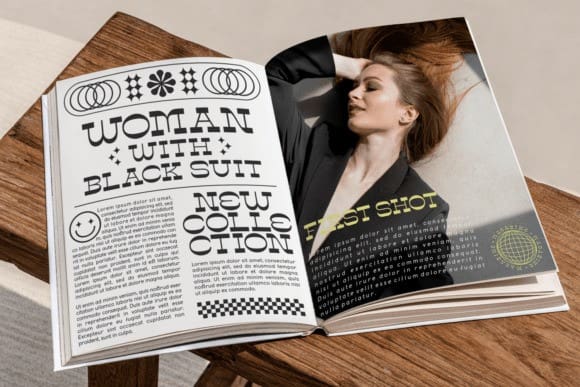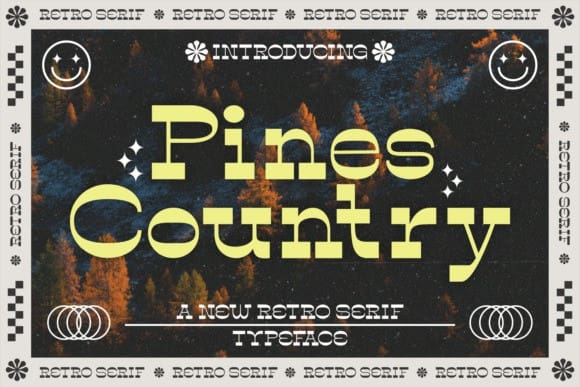
Pines Country Font
Pines Country Font is a retro and stylish slab serif font that is perfect for projects that need a touch of nostalgia and vintage charm. Its bold and chunky shapes create a sense of strength and power, while its retro and stylish design adds an element of creativity and style. Ideal for branding, posters, and any project that requires a font that is both retro and stylish.